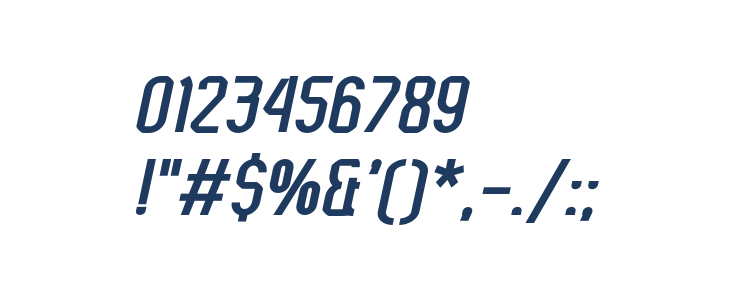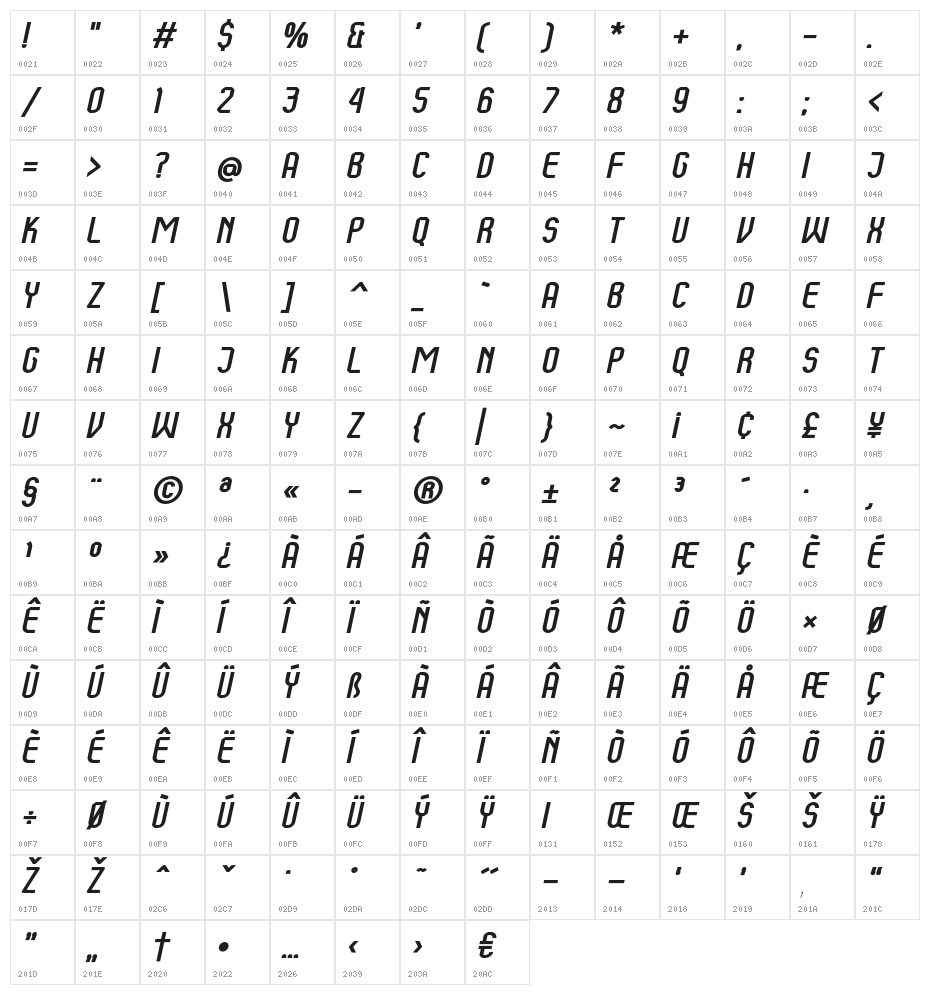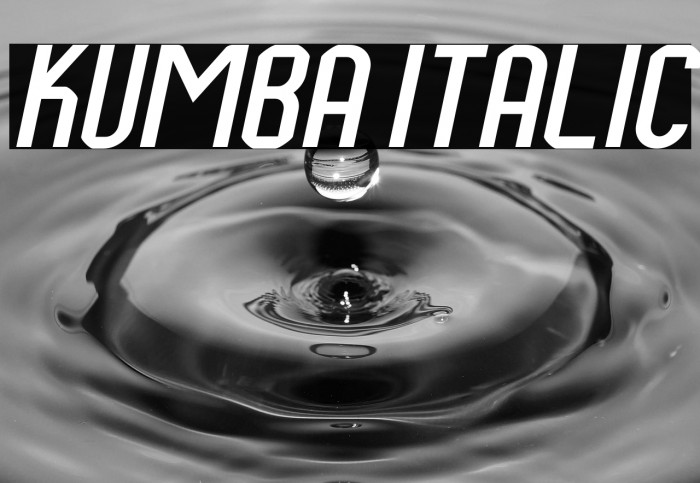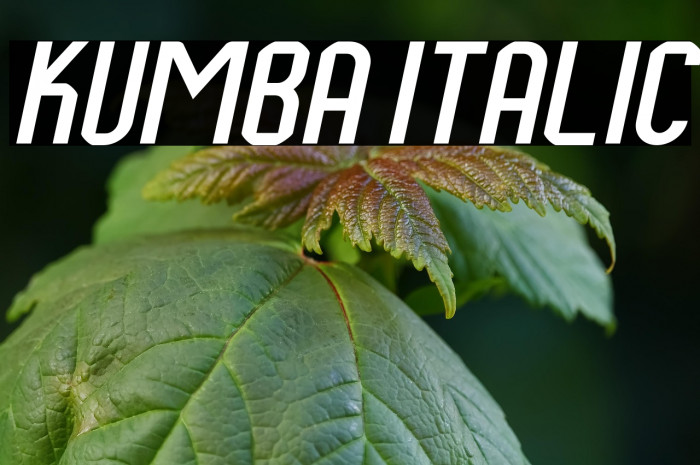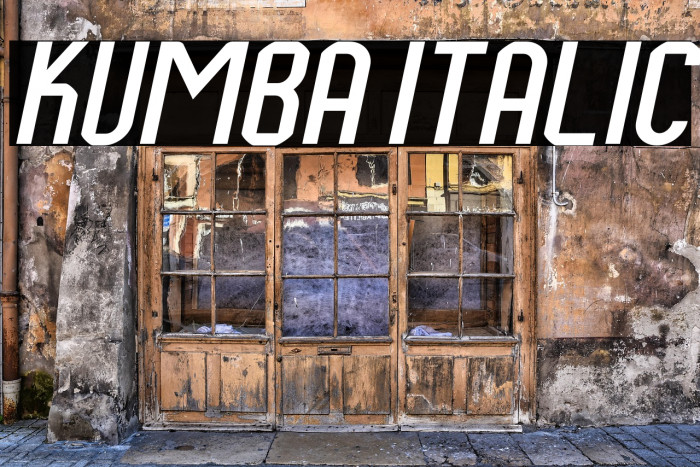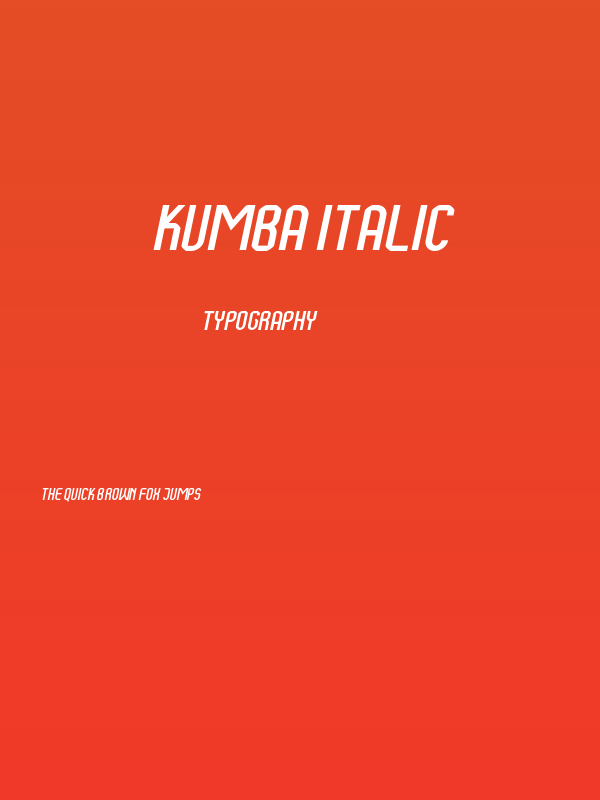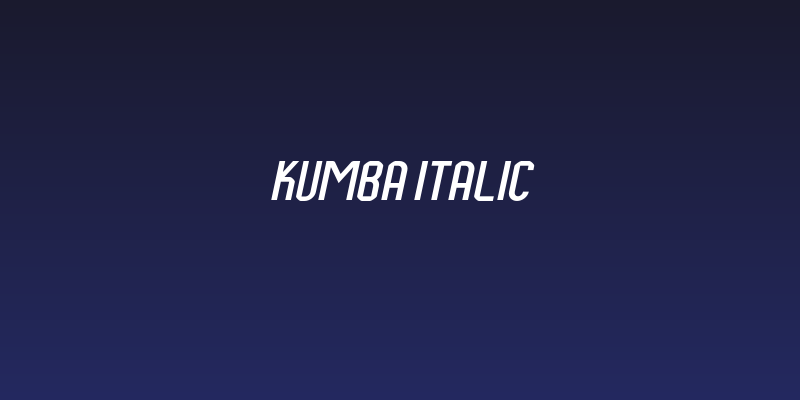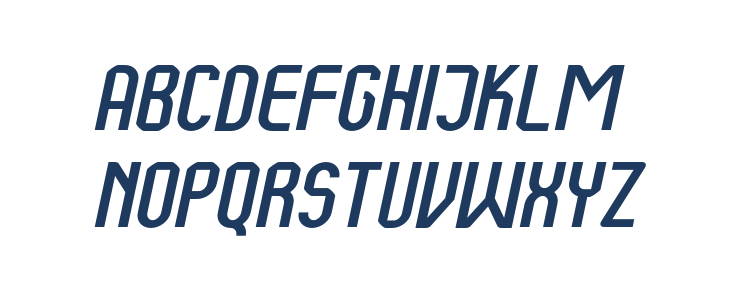
Kumba Italic Font
Kumba Italic Description
This font features a bold and dynamic italic style, characterized by its strong diagonal emphasis and angular letterforms. The strokes are consistent in weight, providing a uniform appearance that enhances readability despite the slanted design. The uppercase and lowercase letters maintain a cohesive look, with sharp edges and a modern flair. Numbers and special characters are crafted with the same attention to detail, ensuring versatility across various applications. The font's overall aesthetic is sleek and contemporary, making it suitable for projects that require a sense of movement and energy.
| Proposed Projects | Ideal for sports branding, dynamic posters, modern advertising, and energetic logo designs. |